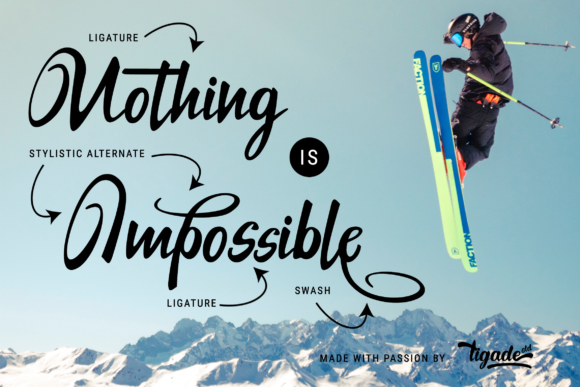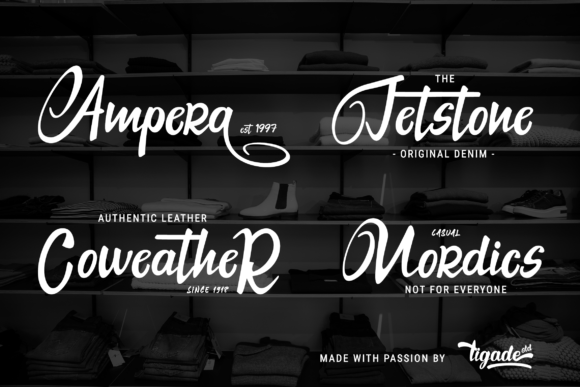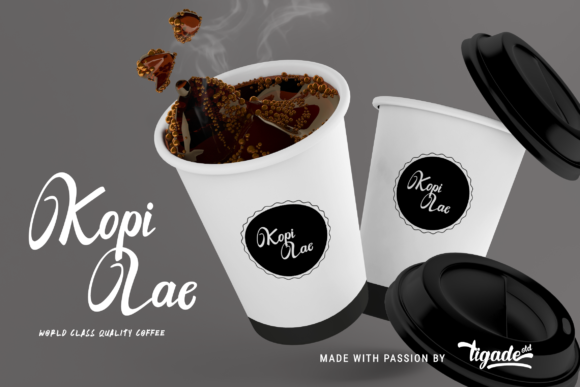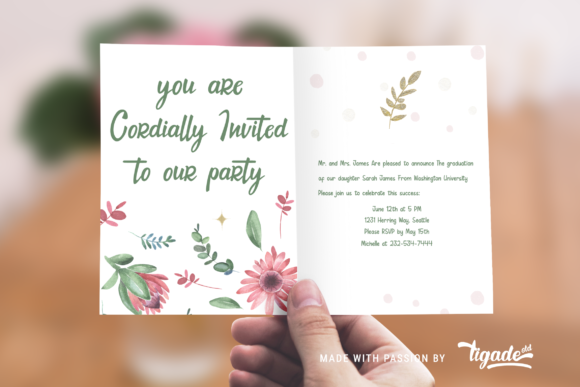
Kasih Putih Font
About Kasih Putih Font
Kasih Putih is a modern handwritten font. It will elevate a wide range of design projects to the highest level, be it branding, headings, wedding designs, invitations, signatures, logos, labels, and much more!